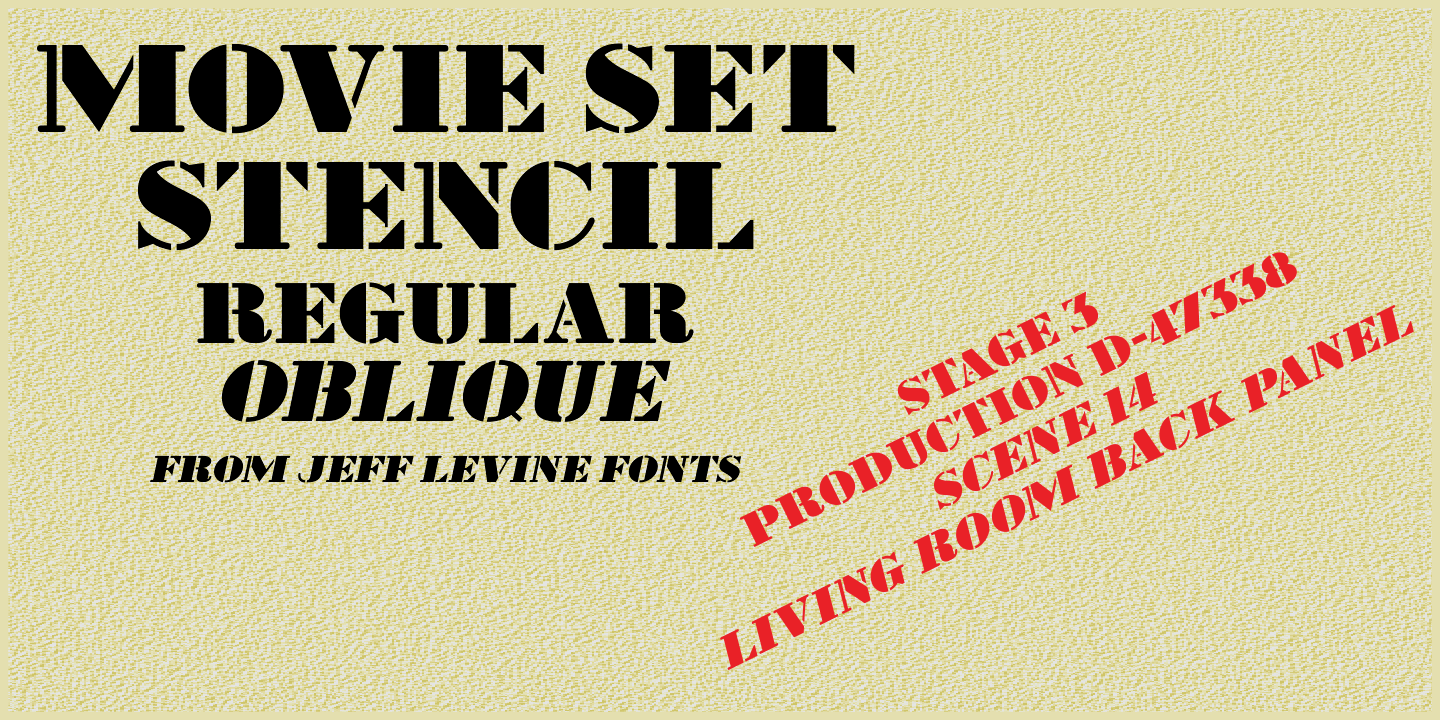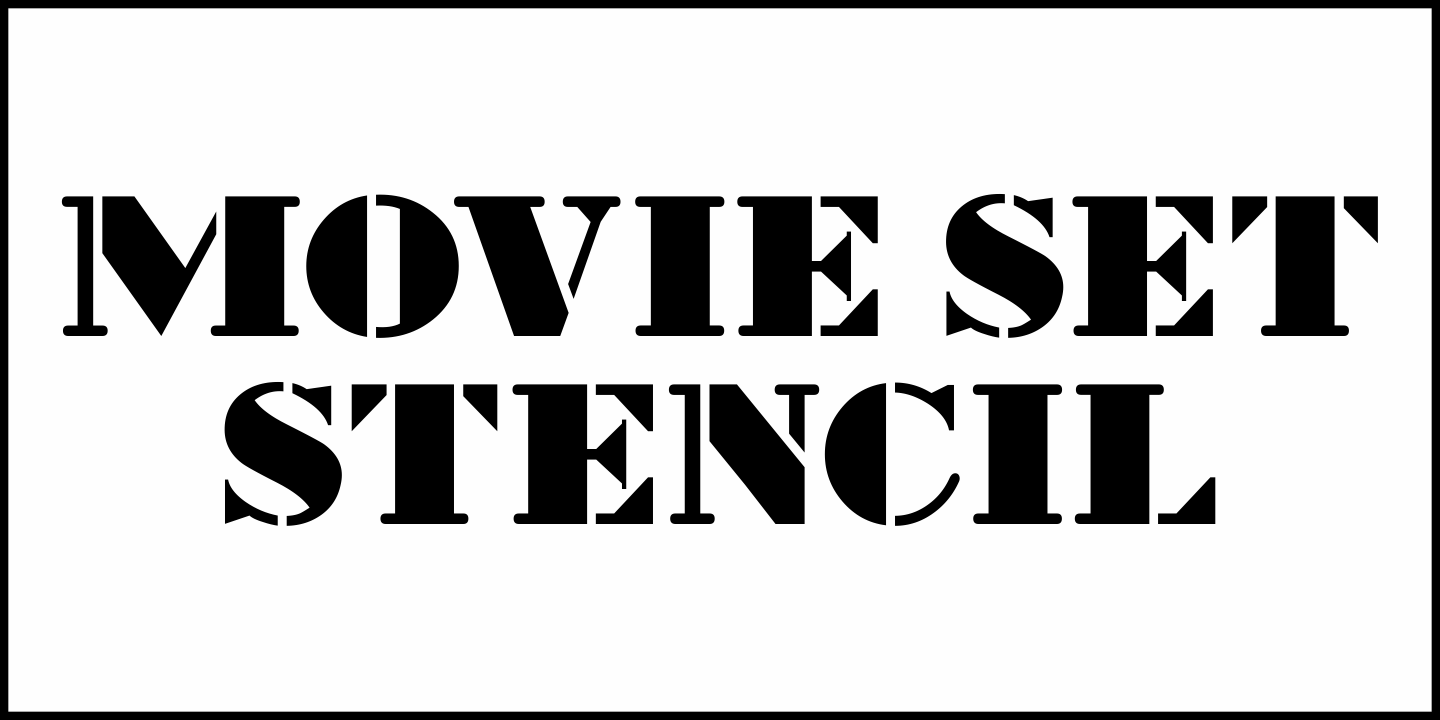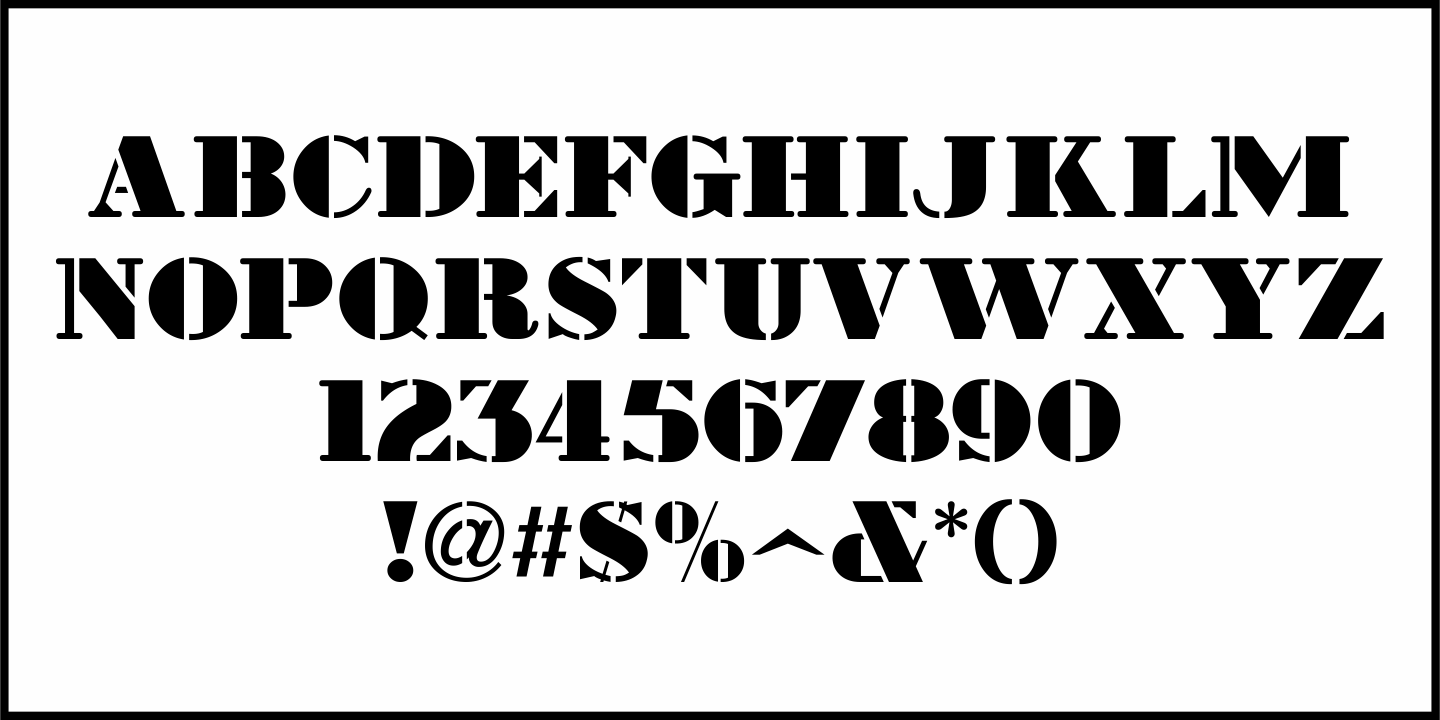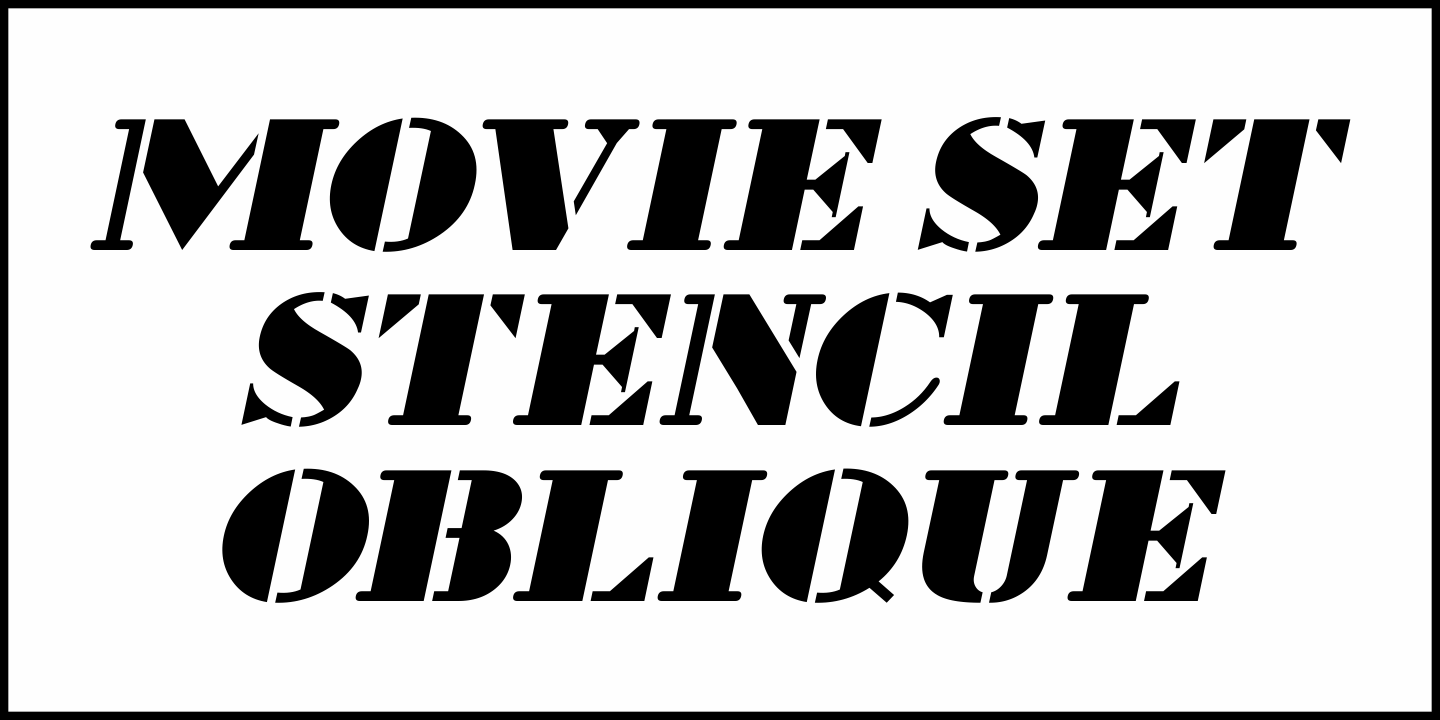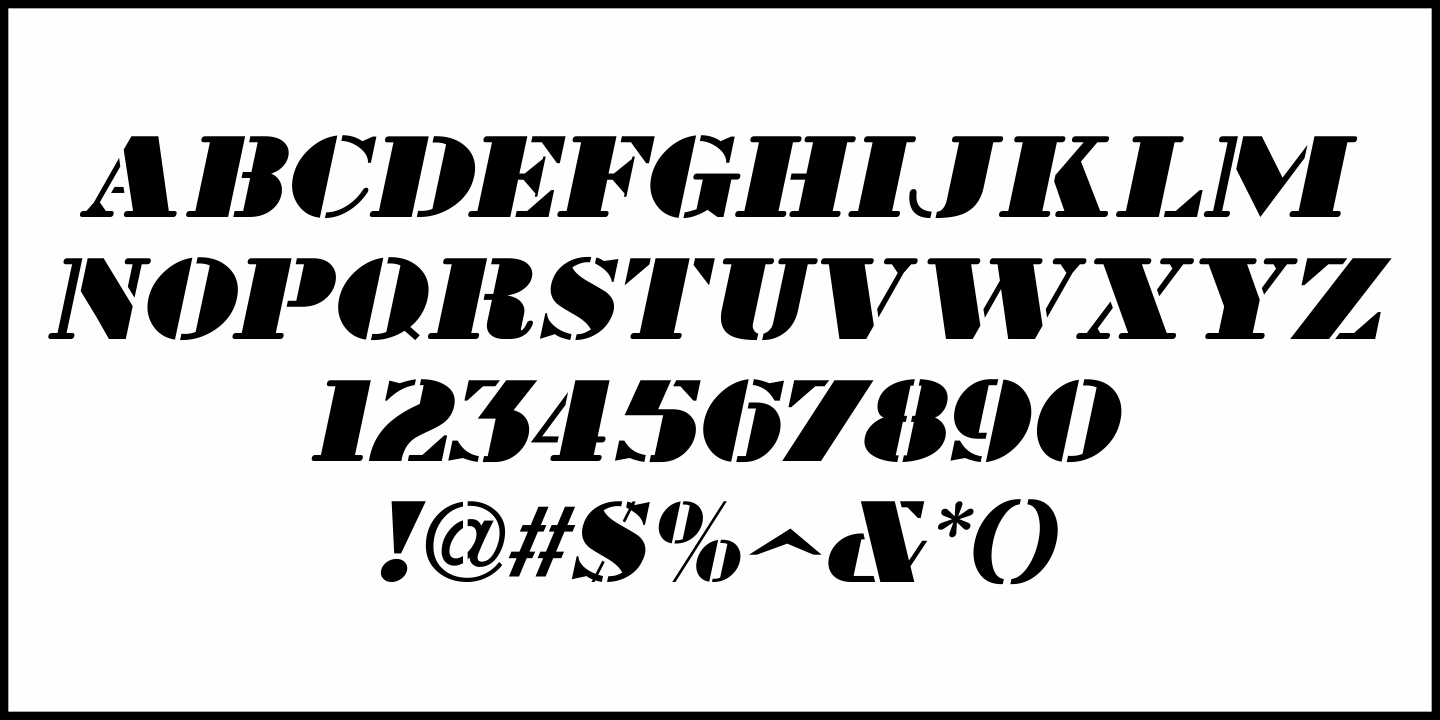
Movie Set Stencil
The March 9, 1949 issue of the movie trade publication "The Exhibitor" carried a subsection called "Physical Theater Spring Buying Guide". The masthead page had the title hand lettered in an extra bold serif stencil design.
This was the model for Movie Set Stencil JNL, which is available in both regular and oblique versions.